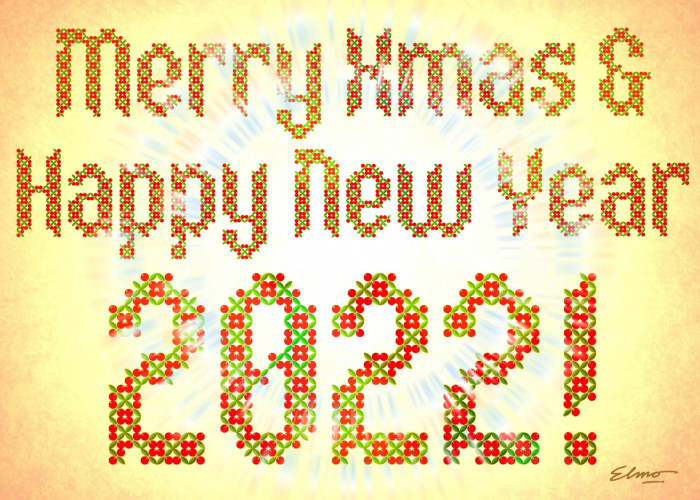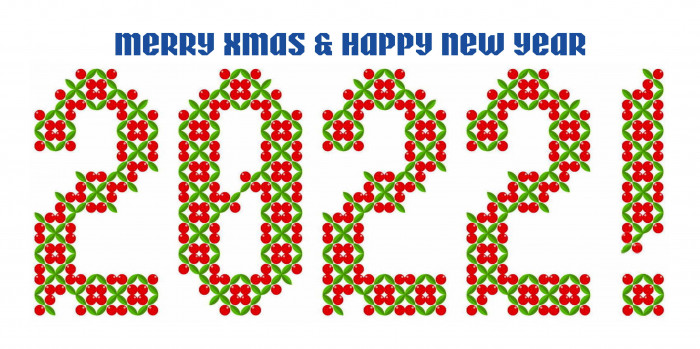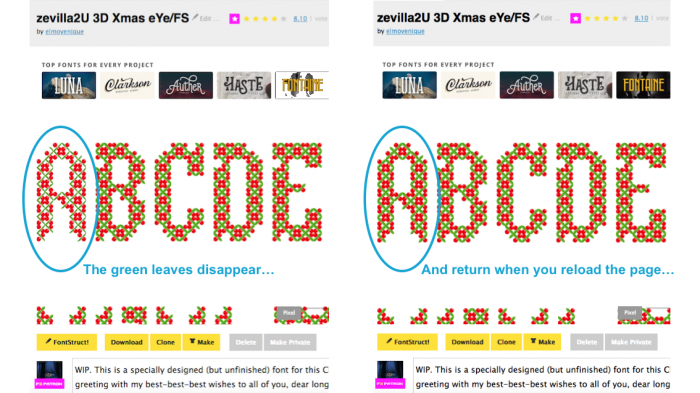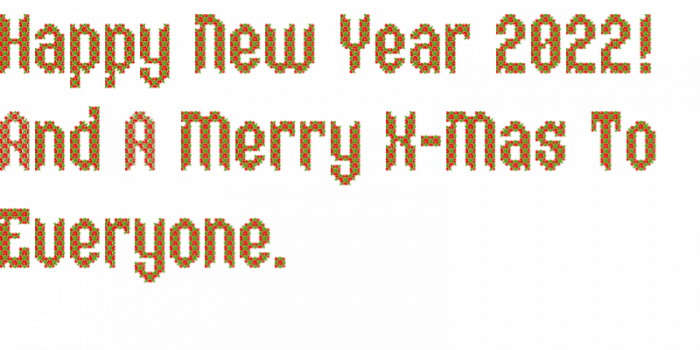
• WIP. This is a specially designed (but unfinished) font for this Christmas greeting with my best-best-best wishes to all of you, dear long-distance friends. And my family and I send you with this our enormous hope for the next 2022 to be much better for every one of the huge group of people who friendly use FontStruct. Be happy wherever you are and whenever you can. Warm hugs. ❤️❤️❤️! PS: Better see at big size.
This is a specially designed (but unfinished) font for this Christmas greeting with my best-best-best wishes to all of you, dear long-distance friends. And my family and I send you with this our enormous hope for the next 2022 to be much better for every one of the huge group of people who friendly use FontStruct. Be happy wherever you are and whenever you can. Warm hugs. ❤️❤️❤️!
@elmoyenique - And a very Merry Christmas to you, maestro!  I love the color details of the holly berries and leaves.  However, it does appear that the light green left-sides of the leaves for the letter "A" are missing!  (:^O  Perhaps they've been naughty this year?  ;^)
This looks pretty cool. I wonder what it would look with the colors reversed?
@Goatmeal: Thanks a lot. The missing colour must be a FS bug, on my computer they also disappear sometimes, but they are in the font. Merry Xmas to you and yours.
@elmoyenique - I, too, wondered if it was a rendering error, as they seemed to disappear when I zoomed in multiple times to view the intricate detail, but it looks like is only the letter A.
That last sentence shouldn't have been there, but the red leaves and green bulbs would look weird, would it?
Congratulations! FontStruct Staff have deemed your FontStruction worthy of special mention. “zevilla2U 3D Xmas eYe/FS” is now a Top Pick.
✨ Xmas magic ✨
@elmoyenique - Truly a Festivus miracle!  ;^D
HAD TO BE INSPIRED by you (i think ok)
@lucapri: four's work has always been an inspiration to me.